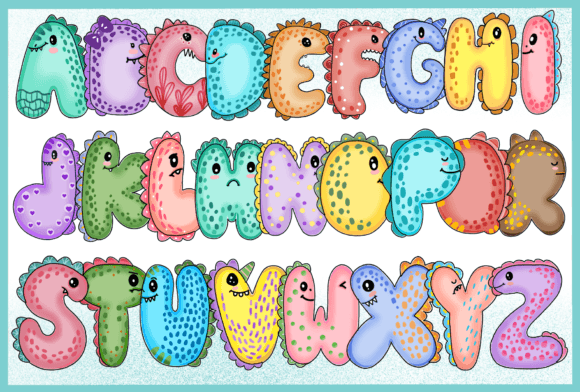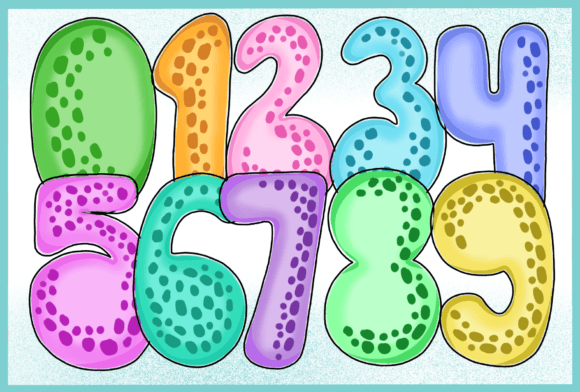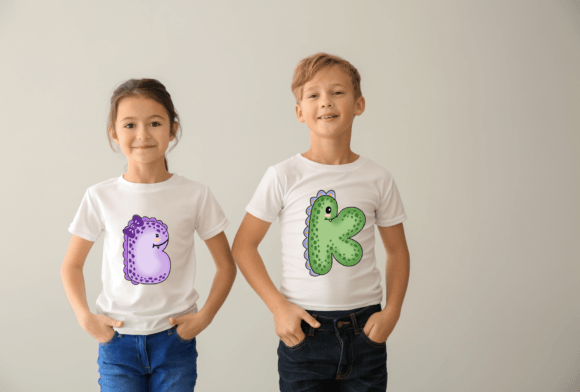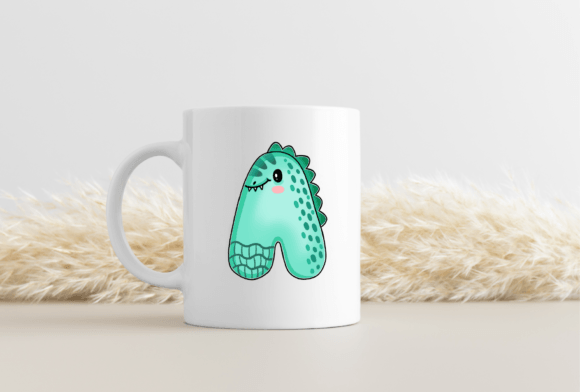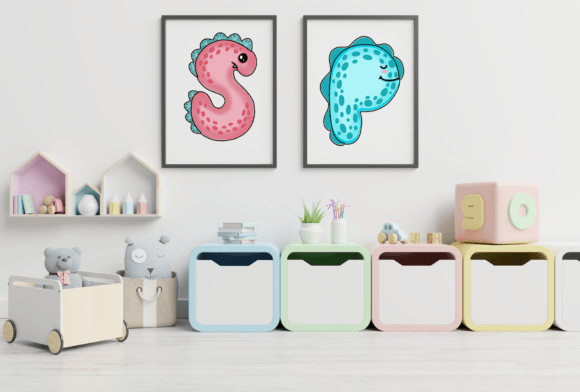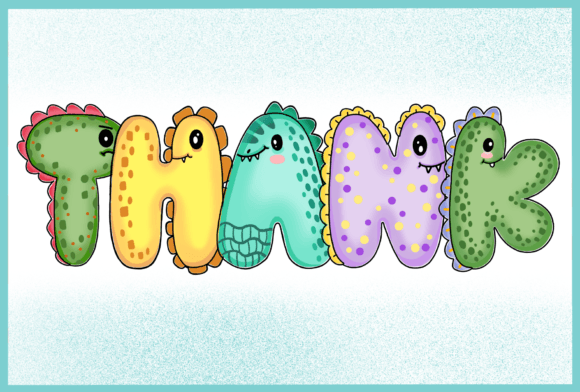
Dino Cute Font: Add a Playful Touch to Your Designs
Are you looking for a font that can add a dash of playfulness and authenticity to your designs? Look no further than the Dino Cute Font! This adorable and colorful font is perfect for any children’s activity or school project, and is sure to make your designs come alive.
What is Dino Cute Font?
Dino Cute Font is a chunky lettered font that is designed to be both fun and engaging. Its cute and colorful design makes it perfect for use in a variety of applications, from children’s books and educational materials to craft projects and DIY designs.
Key Features of Dino Cute Font
- Playful Design: The Dino Cute Font features a playful design that is sure to capture the attention of children and adults alike.
- Colorful: The font is available in a range of colors, making it easy to match with your existing design scheme.
- Chunky Lettering: The chunky lettering of the font makes it easy to read and adds to its playful feel.
- Authentic: The font has an authentic feel that makes it perfect for use in educational materials and children’s activities.
Uses for Dino Cute Font
The Dino Cute Font is a versatile font that can be used in a variety of applications, including:
- Children’s Books: The font is perfect for use in children’s books, adding a playful touch to stories and illustrations.
- Educational Materials: The font is ideal for use in educational materials, such as worksheets, activity sheets, and educational posters.
- Craft Projects: The font is perfect for use in craft projects, such as making cards, gift tags, and other DIY designs.
- School Projects: The font is suitable for use in school projects, adding a playful touch to presentations, posters, and other projects.
Benefits of Using Dino Cute Font
There are many benefits to using the Dino Cute Font in your designs, including:
- Increased Engagement: The playful design of the font is sure to capture the attention of children and adults alike, increasing engagement with your designs.
- Improved Readability: The chunky lettering of the font makes it easy to read, even for young children.
- Flexibility: The font is versatile and can be used in a variety of applications, from children’s books to craft projects.
- Authenticity: The font has an authentic feel that makes it perfect for use in educational materials and children’s activities.
Tips for Using Dino Cute Font
Here are a few tips for using the Dino Cute Font in your designs:
- Use it in Combination with Other Fonts: The Dino Cute Font can be used in combination with other fonts to add visual interest to your designs.
- Experiment with Colors: The font is available in a range of colors, so don’t be afraid to experiment and find the perfect color for your design.
- Use it to Add Emphasis: The chunky lettering of the font makes it perfect for adding emphasis to headings and titles.
The Dino Cute Font is a fun and engaging font that is perfect for adding a playful touch to your designs. Its cute and colorful design makes it ideal for use in children’s books, educational materials, craft projects, and school projects. With its chunky lettering and authentic feel, this font is sure to capture the attention of children and adults alike. So why not give it a try and see how it can bring your designs to life?